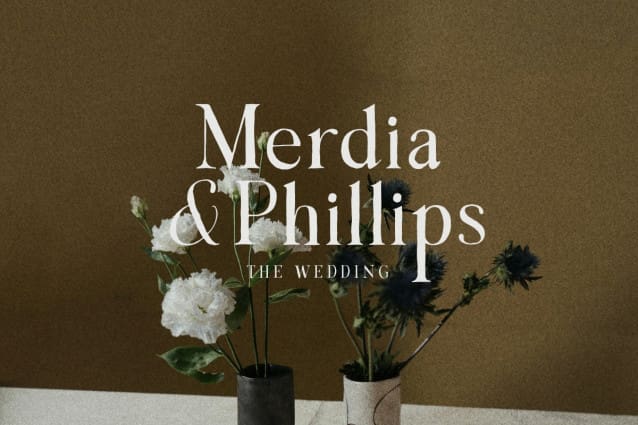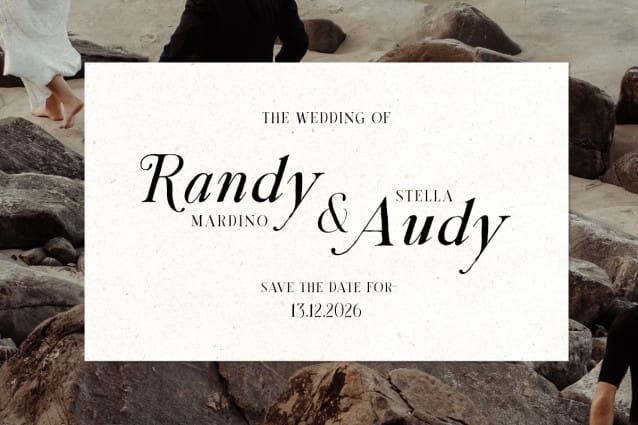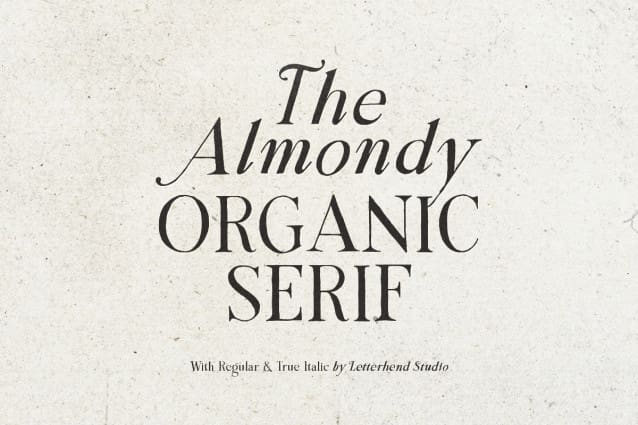
The Almondy Organic Font
The Almondy Organic Font – An organic serif with stylish looks. It comes with true italic version. Perfectly to be applied to the other various formal forms such as invitations, labels, logos, magazines, books, greeting / wedding cards, packaging, fashion, make up, stationery, novels, labels or any type of advertising purpose.